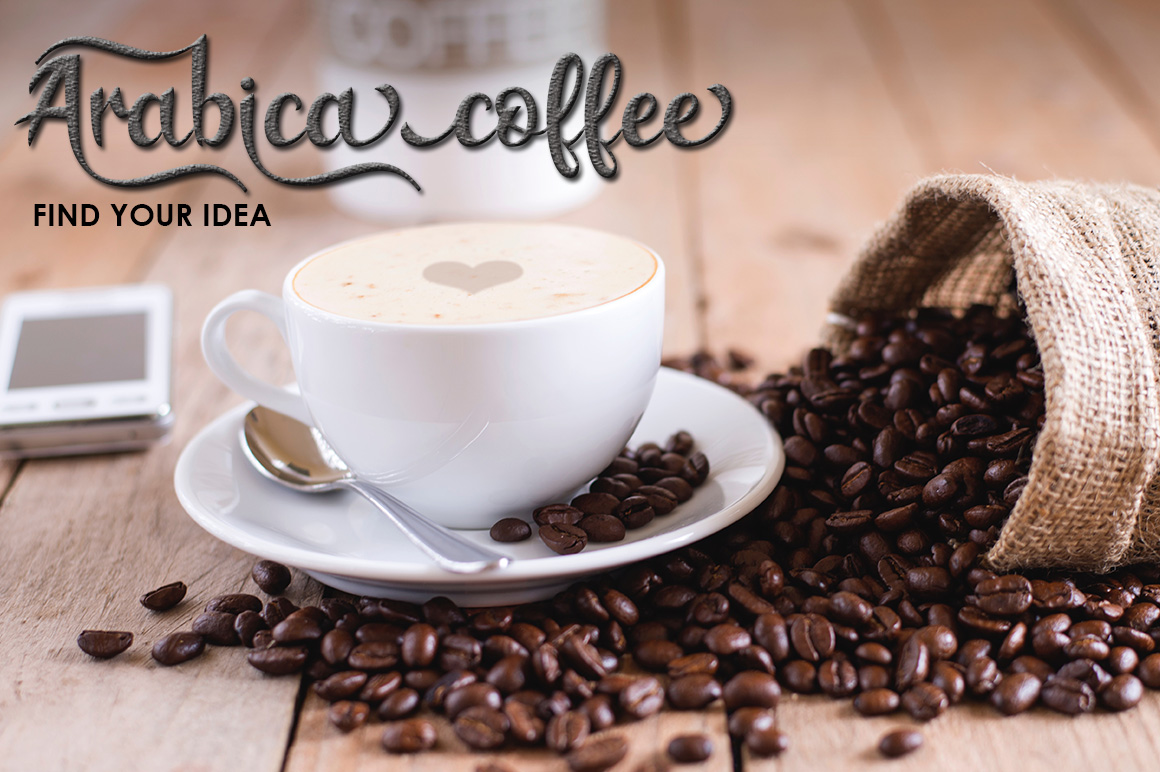
Ambrechild Script Font
The Ambrechild is a highly legible script font. It has a fun and classic feel which makes it perfect for every design which needs a playful, yet elegant typeface.